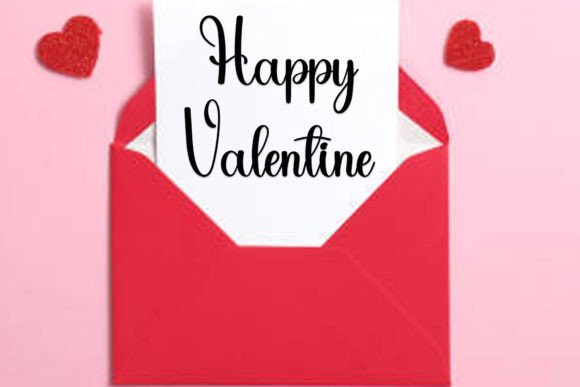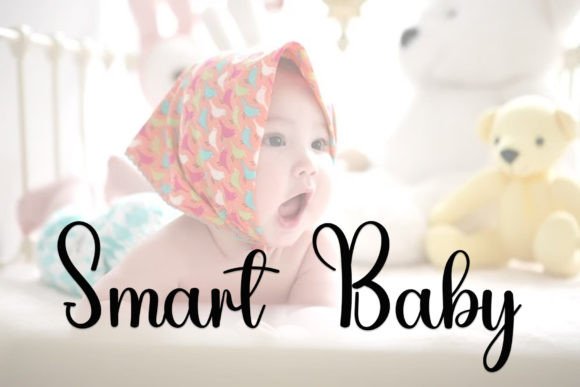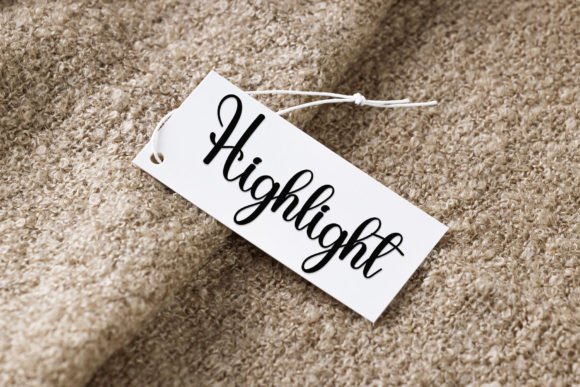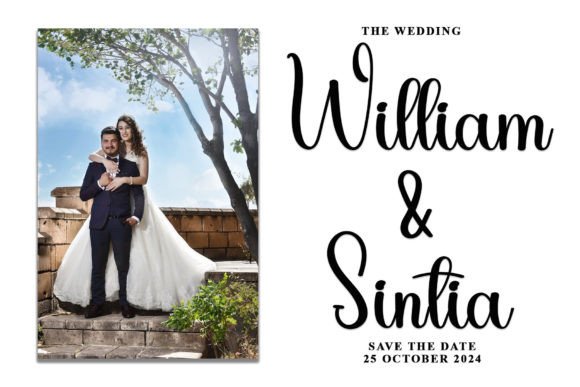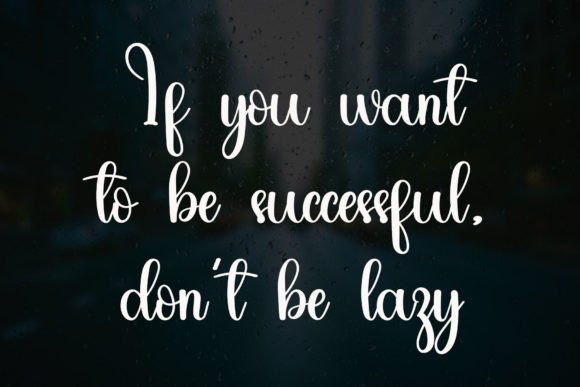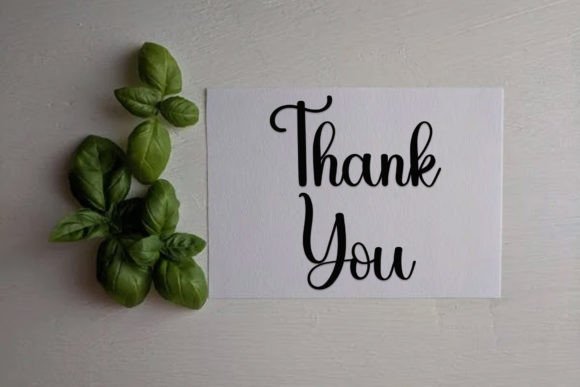
The Perfect Petal: Unveiling the Beauty of Beautiful Sunflower Font
As a designer, there’s nothing quite like the thrill of discovering a new font that sparks creativity and sets the tone for a project. It’s that moment when the perfect combination of style and elegance comes together, making your design truly shine. For me, that moment happened when I stumbled upon the Beautiful Sunflower Font – a stunning typographic gem that has since become a staple in my design toolkit.
Beautiful Sunflower Font is a masterfully crafted font that exudes sophistication and charm, making it perfect for adding a personal touch to invitations, branding, or social media. Its fluid strokes and natural flow create a captivating look that’s both elegant and approachable, making it a valuable addition to any designer’s arsenal.
Beautiful Sunflower Font Key Features
- Font Family: A unique, hand-drawn font with a warm and inviting feel.
- Character Set: Includes over 250 characters, including uppercase and lowercase letters, numbers, and punctuation marks.
- Unique Characteristics: Features a delicate, hand-painted style with subtle texture and imperfections, giving it a natural and organic feel.
Beautiful Sunflower Font Review
I recently had the chance to work with the “Beautiful Sunflower Font” and I must say, it’s a lovely addition to any design project. Here are some of the things that work well:
- ✨ Unique and playful style: The sunflower theme is a great way to add some personality to your designs, and the font’s quirky charm is sure to capture attention.
- ✨ Versatile: The font comes in a range of weights and styles, making it easy to use in a variety of contexts, from headings to body text.
- ✨ High-quality glyphs: The font’s glyphs are crisp and clear, even at smaller sizes, which is a must for any font.
However, I did encounter a few limitations:
- ⚠️ Limited language support: Unfortunately, the font only supports a limited range of languages, which might be a problem for designers working on projects that require a more extensive language set.
- ⚠️ Not ideal for small text: While the font looks great at larger sizes, it can become difficult to read at smaller sizes, which might make it less suitable for body text.
Overall, I think the “Beautiful Sunflower Font” is a great addition to any design project that requires a playful and unique touch. With a little creativity and planning, it can be a real showstopper. Just be mindful of its limitations, and you’ll be golden.
The Beautiful Sunflower Font is ideal for:
1. Creating eye-catching headings and titles.
2. Designing invitations, greeting cards, and other paper crafts.
3. Adding a touch of whimsy and elegance to your designs.
4. Creating custom logos and branding materials.